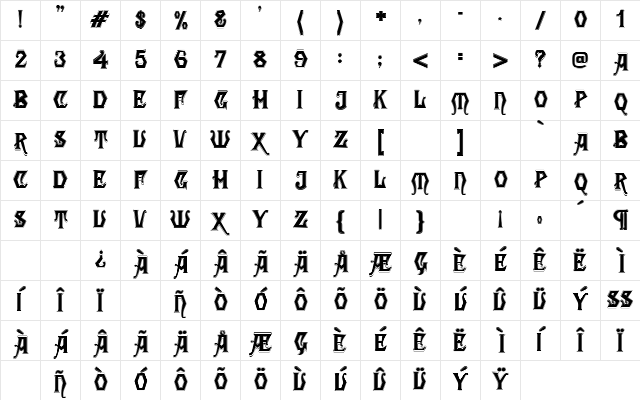
Angular Inline Regular
Design Context for Angular Inline Typeface
Angular Inline brings ornamental detail and strong personality to headlines and identities, where visual impact matters more than quiet functionality.
Font Pairing: Pair with a clean neutral sans-serif for body copy to let Angular Inline's character lead without overwhelming the composition.
Pro Tip: Treat Angular Inline as the centrepiece of your typographic hierarchy. One strong heading set in a decorative face can carry an entire layout.